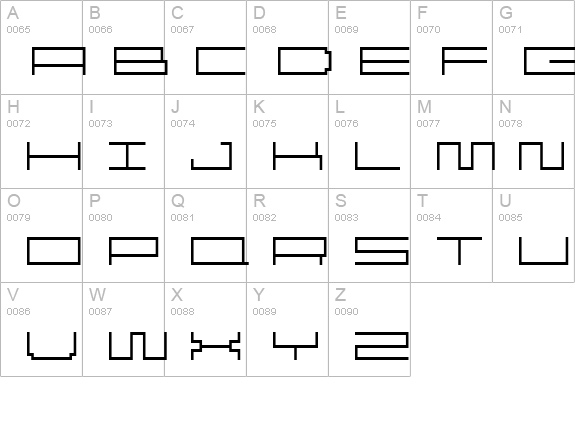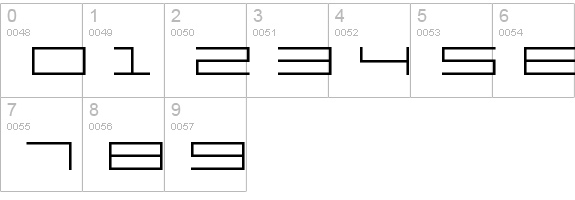
Reversion ExtraLight is an airy, ultra-refined variant in the Reversion typeface family \xE2\x80\x94 well suited to minimalist headlines and refined display use.
Reversion ExtraLight font is a remarkable typeface that exudes elegance and sophistication. With its sleek and slender letterforms, this font effortlessly captures attention and adds a touch of refinement to any design project. Its clean lines and delicate curves create a sense of modernity, making it perfect for a variety of applications. One of the most notable features of Reversion ExtraLight font is its versatility. Whether used for headlines, body text, or even branding materials, this font adapts seamlessly to any context, delivering a consistent and visually pleasing result. Its extra light weight adds a sense of airiness and delicacy, making it particularly well-suited for projects that require a subtle touch. What makes Reversion ExtraLight font even more appealing is that it is freely available to download at FontsMarket.com. This means that designers and creatives can access this exceptional font without any financial barrier, allowing them to explore its potential and incorporate it into their projects with ease. Whether you are designing a wedding invitation, a magazine layout, or a professional website, Reversion ExtraLight font is a fantastic choice that will elevate your design to new heights. Its timeless elegance and free availability make it a truly valuable asset for any designer looking to make a lasting impression.